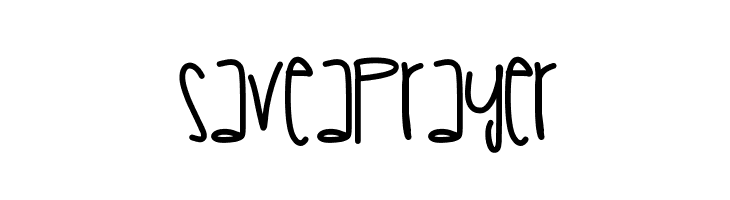
( Fonts by Des Gomez )
A playful, hand-drawn font with tall, narrow letters and a whimsical style.
( Fonts by Des Gomez )
A playful handwritten font with a casual and dynamic style.
( Fonts by Des Gomez )
A playful handwritten font with a whimsical and artistic style.
( Fonts by Des Gomez )
A playful, handwritten font with bold, rounded characters and a whimsical style.
( Fonts by Des Gomez )
A playful, handwritten font with bold strokes and a dynamic, casual style.
( Fonts by Des Gomez )
A playful handwritten font with whimsical decorative elements.